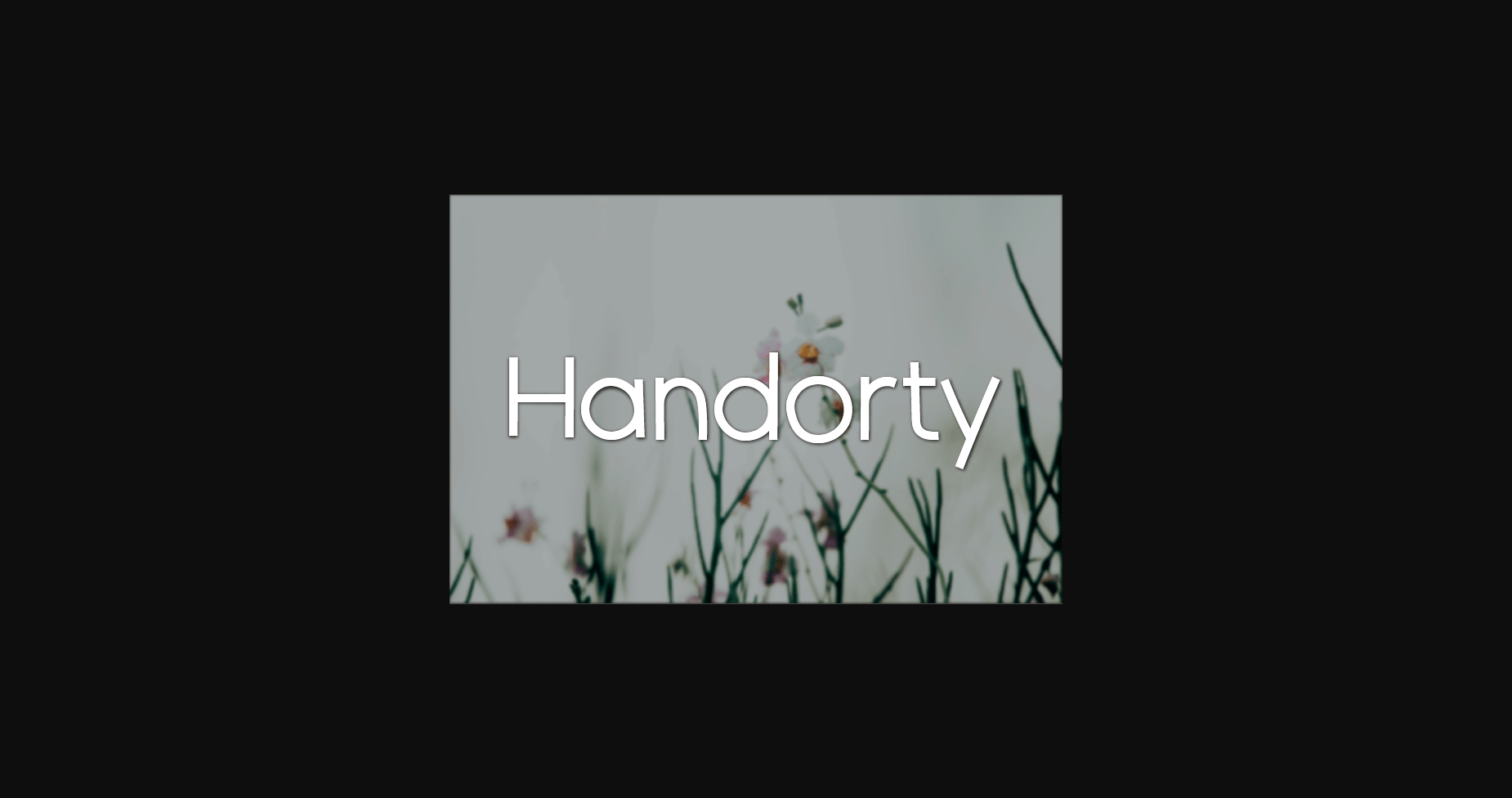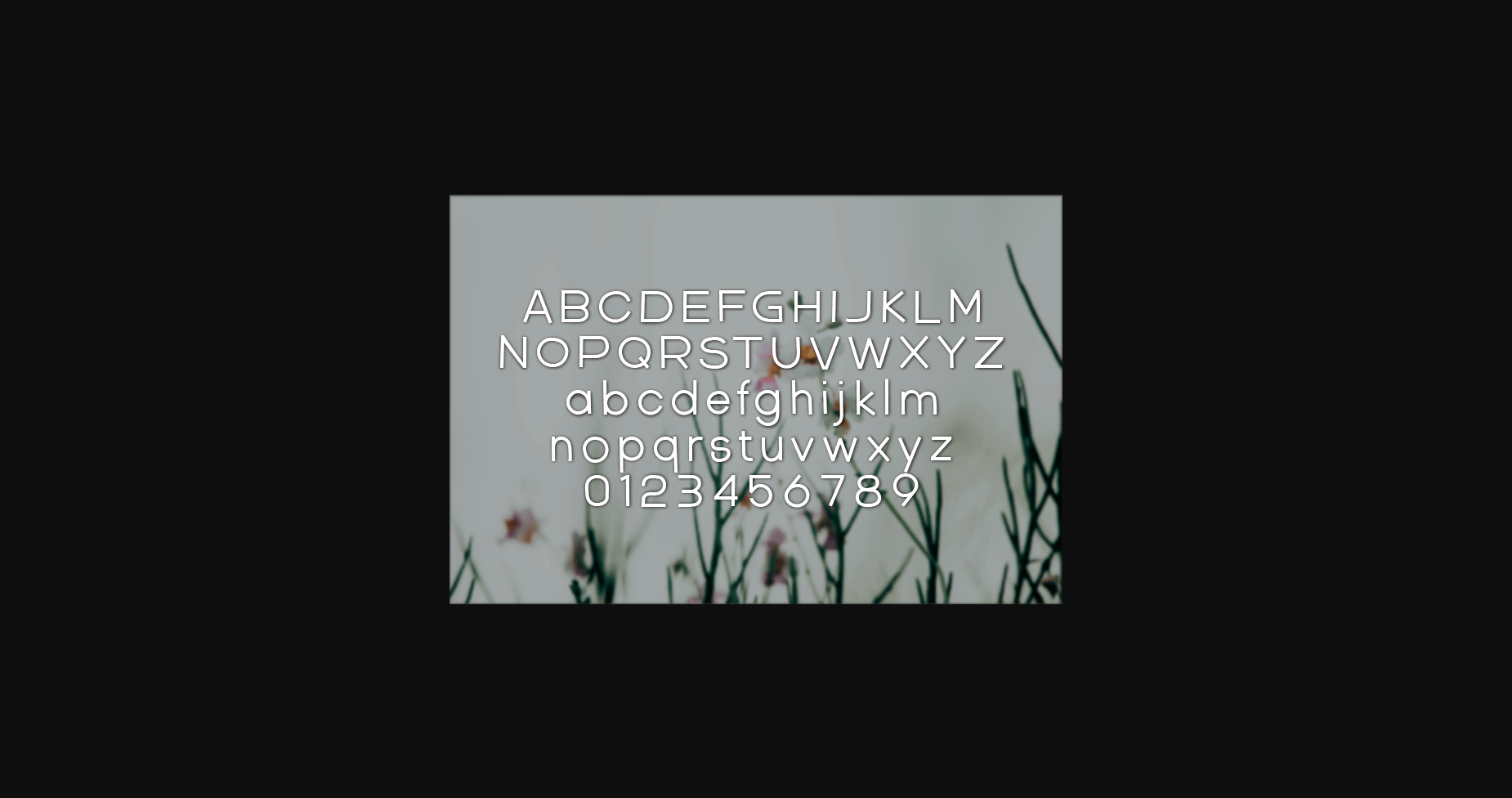
HomeSans Serif FontsHandorty Font Sans Serif Fonts Handorty Font FacebookXPinterestWhatsApp 1 of 6 ... Handorty Font Poster 2... Handorty Font Poster 3... Handorty Font Poster 4... Handorty Font Poster 5... Handorty Font Poster 6... About Handorty Font Handorty is an interesting and unique sans serif font perfect for quotes, notes, T-shirts, and many more. Fall in love with its incredibly versatile style, and use it to create spectacular designs! DOWNLOAD NOW People also explored Wednesday Adventure Font Crosso Minimò Font Merry Christmas Font Saybrox Font Sunnice Font Marsheilla Font Night Time Font Unforgiven Font 405 0 TagsHandorty Font Previous articleStapen FontNext articleGrounding Font LEAVE A REPLY Cancel reply Comment: Please enter your comment! Name:* Please enter your name here Email:* You have entered an incorrect email address! Please enter your email address here Website: Save my name, email, and website in this browser for the next time I comment. Personal Use Free The Most Beautiful Gift Personal Use Free Read more about this font Dead Block Personal Use Free Read more about this font Cloudy Night Personal Use Free Read more about this font Cataclysmo Personal Use Free Read more about this font BLOG Free Fonts Risk: Why Free Fonts Can Be Dangerous for Designers Free Fonts Risk: Why Free Fonts Can Be Dangerous for Designers Using free fonts is a common practice in web and graphic design. However, the... Best Fonts for YouTube Videos: Make Your Thumbnails Stand Out How to Install and Use Fonts on Windows, macOS, and Web Projects Modern Sans-Serif Fonts That Brands Love in 2025